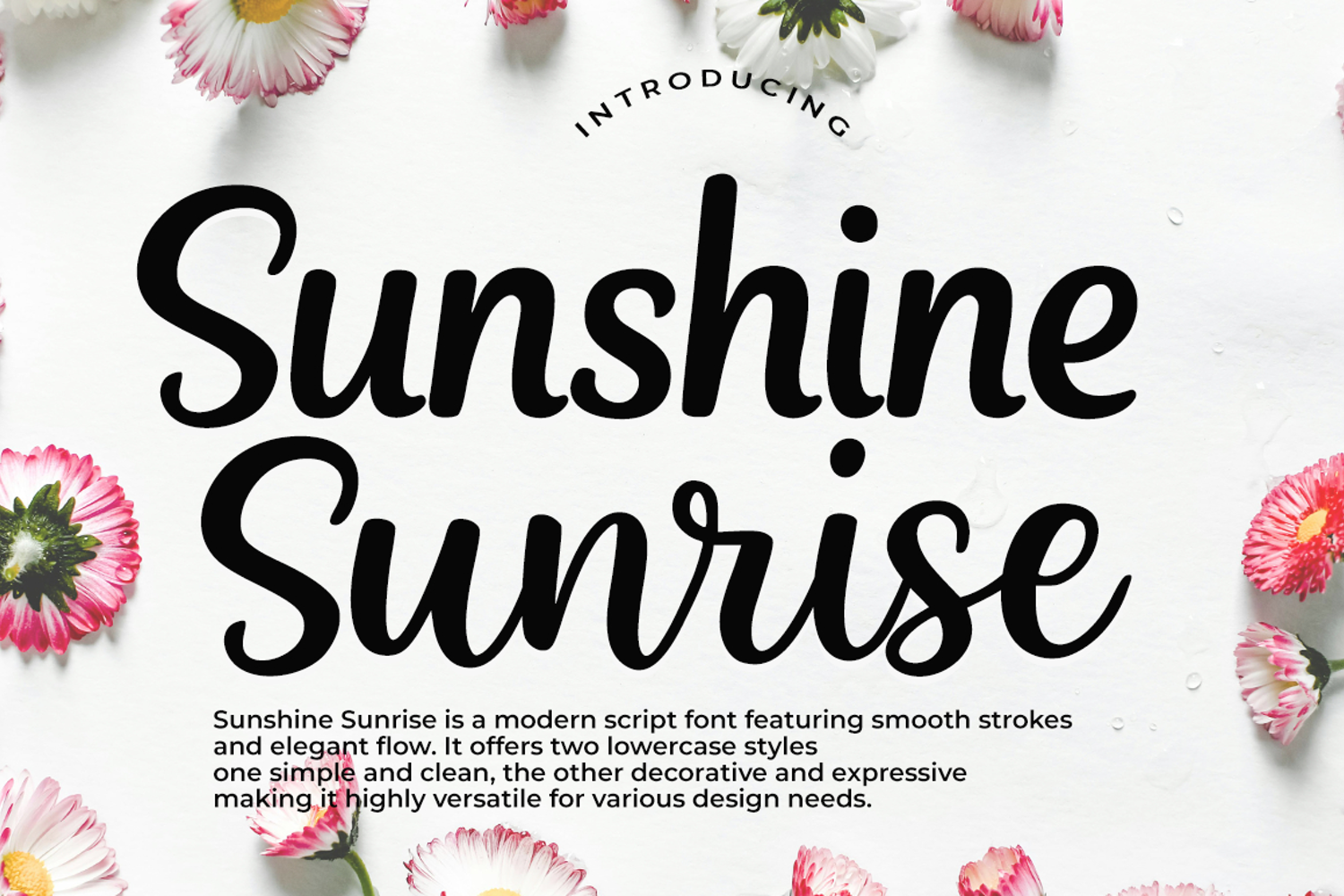
Simple stylish
Sunshine Sunrise is a modern script font with smooth strokes and a versatile handwritten style. It comes with two lowercase variations, allowing you to switch between a clean, simple look and a more decorative, flowing style.